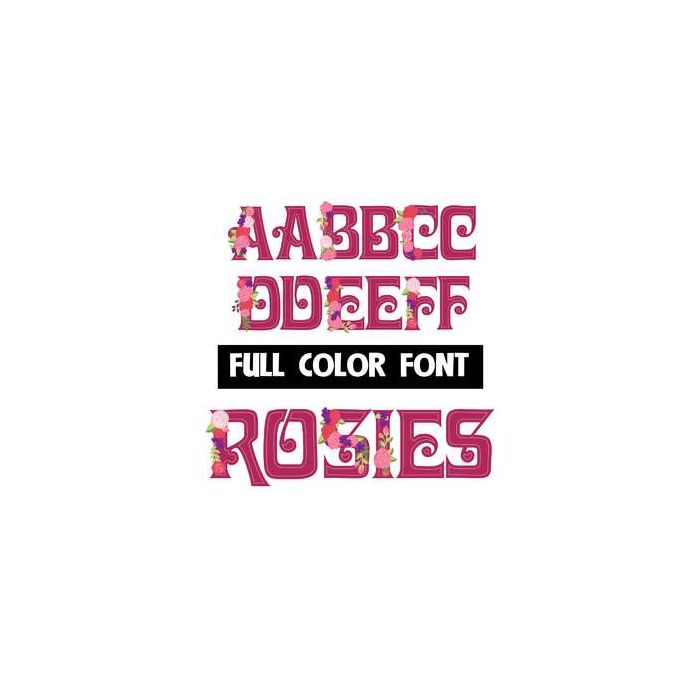
This beautiful full-color font features roses on the uppercase. This font works best for titles, displays, posters and more. Please note color fonts will show as black in non compatible programs. This font type is compatible with Silhouette Studio.